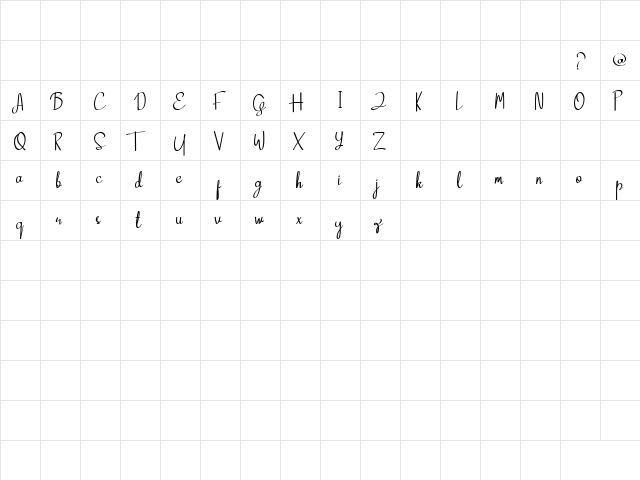
Clana Regular
| Designer | Nicomuslib. Syahrul Fatoni |
Design Context for Clana Typeface
Clana takes a measured approach to typography — its balanced proportions and neutral character make it a reliable workhorse for both digital and print work.